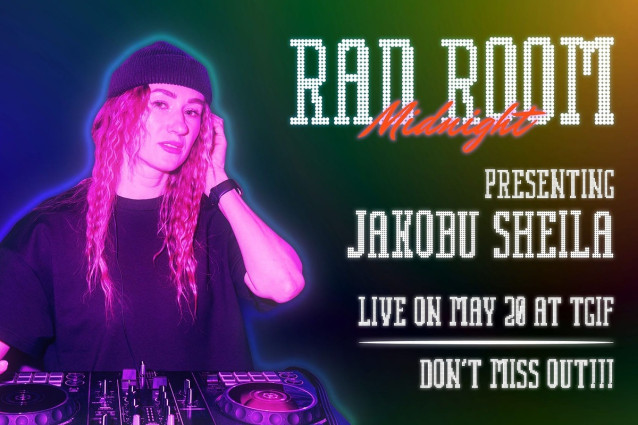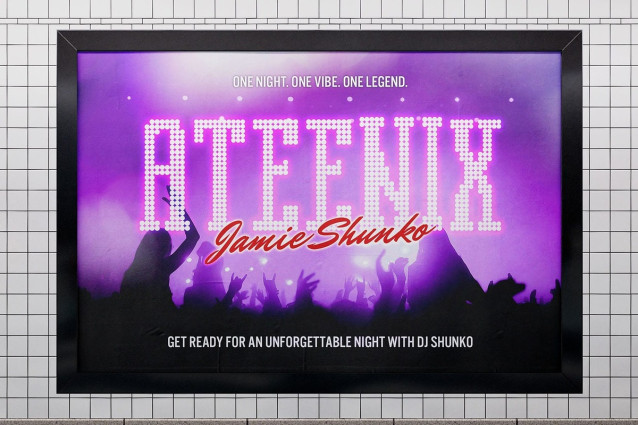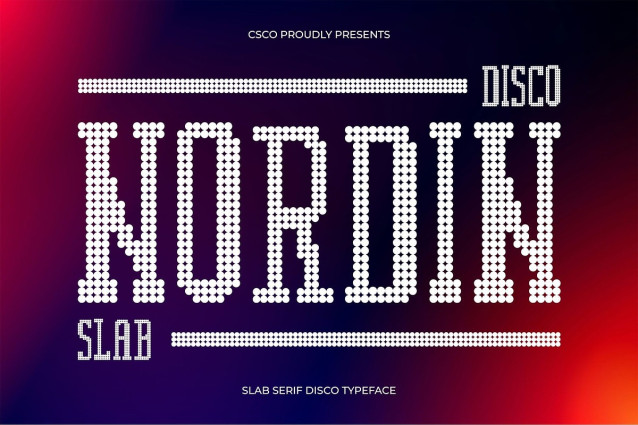
Nordin Slab Disco Font
Nordin Slab Disco is a modern serif font featuring a bold slab structure paired with a sleek, condensed form. Its clean minimalist style brings a contemporary edge, while the vibrant disco effect infuses each letter with dazzling energy and flair.
Bold, Condensed Form for Maximum Impact With its strong slab serifs and condensed proportions, Nordin Slab Disco commands attention in any layout. This bold structure allows for impactful headlines, logos, and display typography where space is limited but style is essential.
Disco Effect for Retro-Futuristic Vibes The shimmering disco effect brings a retro-glam twist to this modern font, adding sparkle and movement that evoke the vibrant energy of nightlife, dance, and creative expression. It’s ideal for music-related visuals, event posters, or futuristic branding with a nostalgic twist.
Perfect for Eye-Catching Creative Projects Whether used in bold editorial spreads, music festival branding, or fashion-forward campaigns, Nordin Slab Disco offers a unique blend of strength and style. Its combination of classic serif structure and disco-inspired energy makes it stand out in any creative context.
Where Classic Meets Daring Expression Nordin Slab Disco strikes the perfect balance between classic serif design and bold, expressive styling. It’s a font made for designers who want to break convention and bring vibrant, unforgettable energy to their work.